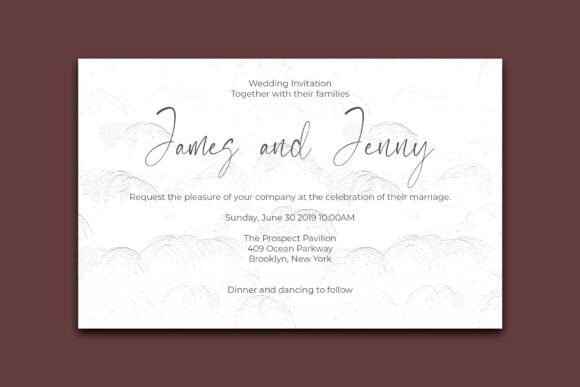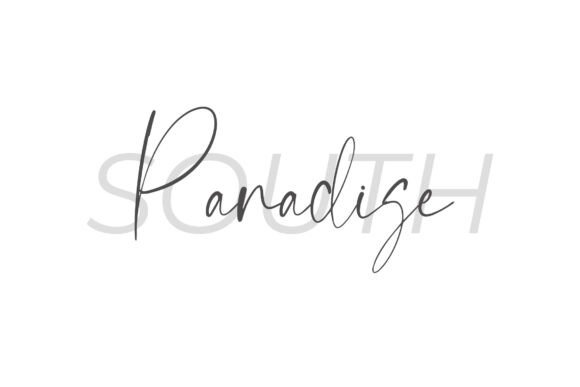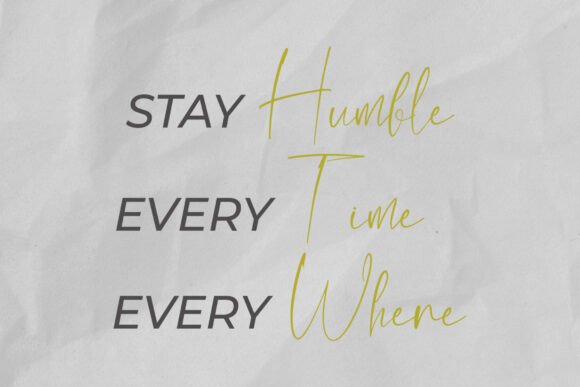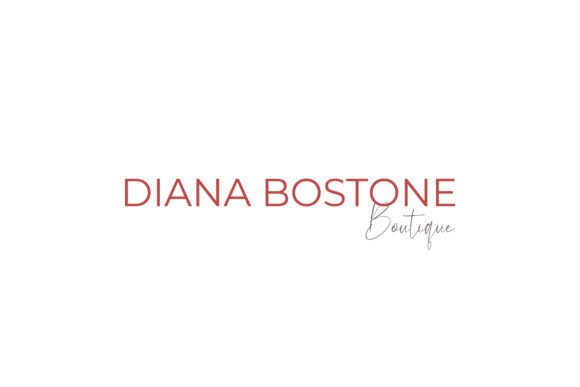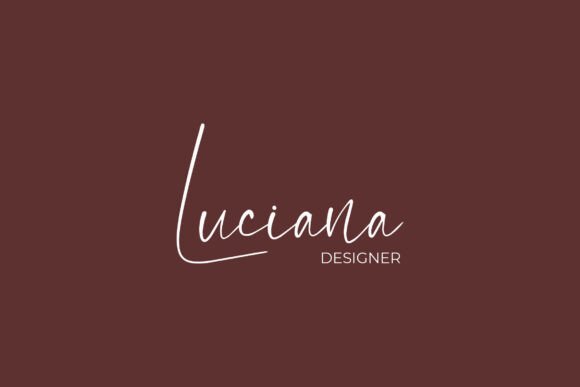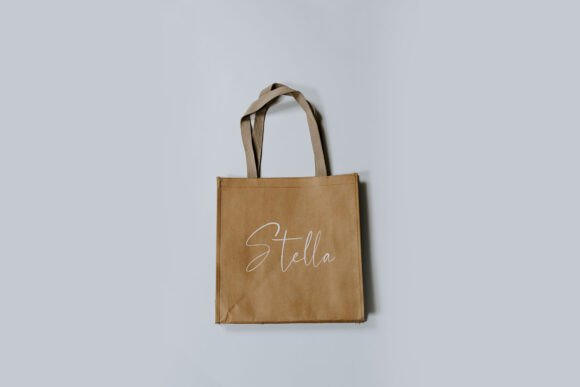
Introduction to Qialliet Font
Qialliet is a minimalist script font designed with elegance and simplicity in mind.
Its unique character shapes bring a refined touch to any project, making it perfect for logos, branding, invitations, and more Qialliet enhances the visual appeal of your designs, ensuring they stand out with style and sophistication.
Key Features of Qialliet Font
Why Choose Qialliet Font?
Qialliet Font offers exceptional quality and versatility, making it a valuable addition to your design toolkit. Whether you’re creating for personal projects or commercial use, Qialliet Font delivers professional results.